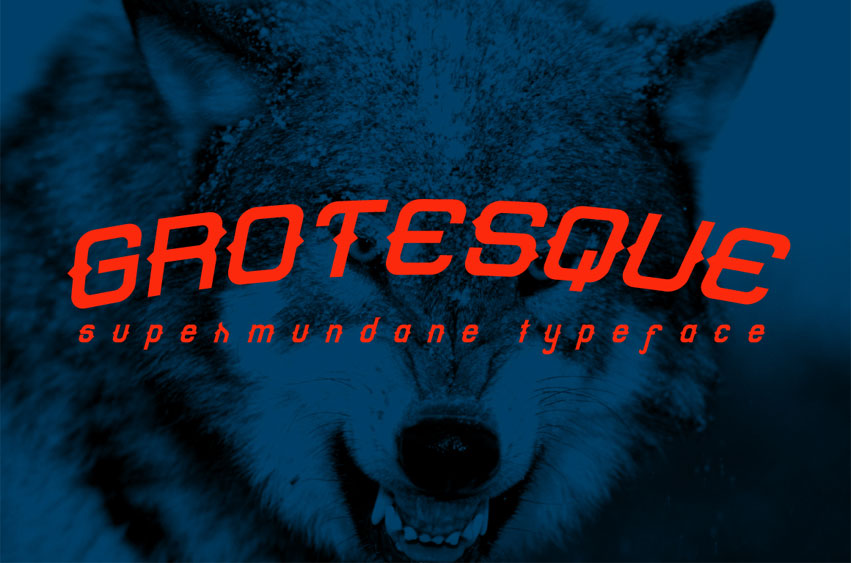
Grotesque Font
Grotesque Font is a handmade font with a unique style that is great for creating strong impressionable designs.
It works great for logo types, body text, quotes, shirts and much more.